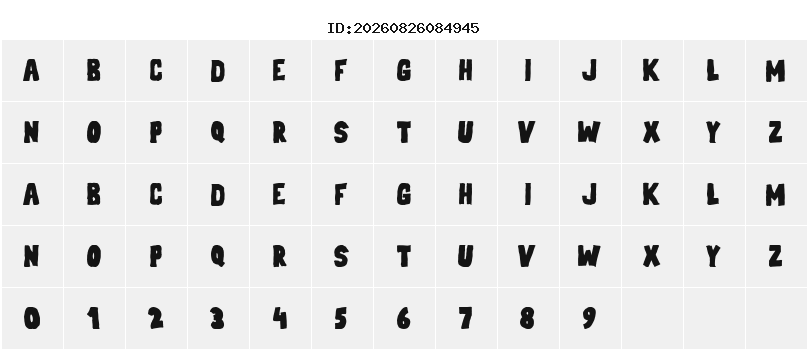
• Font Name: Weltmeister
• Designer: Frédéric Rich
About Weltmeister.ttf
Weltmeister.ttf is a modern, elegant sans-serif font designed for ultimate readability and visual harmony. Perfect for branding, headlines, web design, and print materials.